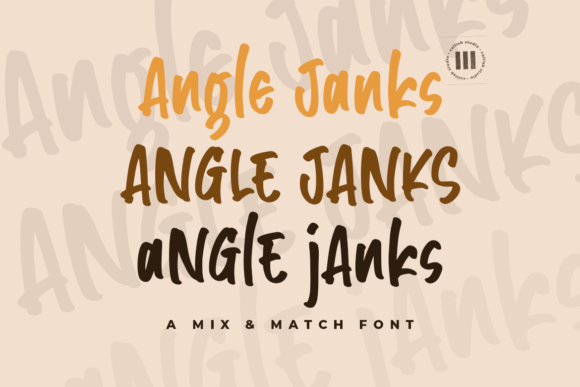
Journey into the realm of culinary artistry with Angle Janks Font, a gastronomic delight for your visual senses. This enchanting script font, crafted by the skilled hands of colllabstudio, dances across your designs like a symphony of flavors. An exquisite blend of delicate and elegant, yet refreshingly casual, Angle Janks Font embodies the essence of culinary creativity.
Indulge your imagination as you explore the boundless possibilities of this font, a perfect match for any design seeking a touch of culinary charm. Its unique characters, like mouthwatering ingredients, harmonize flawlessly, adding a dash of sophistication and a sprinkle of playfulness to your projects.
Envision the tantalizing allure of a hand-written food menu, its letters swirling like wisps of smoke from a gourmet kitchen. Angle Janks Font captures the essence of culinary craftsmanship, transforming your words into delectable treats for the eyes.
Let the aroma of creativity waft through your designs as you incorporate this font into your culinary-themed creations. Whether it's a restaurant logo that exudes warmth and charm or a food packaging design that sparks taste bud anticipation, Angle Janks Font is the secret ingredient you need to make your designs truly sizzle.
As you work your culinary magic with Angle Janks Font, witness the transformation of your designs into masterpieces that evoke the very essence of taste and texture. It's a font that speaks to the senses, inviting your audience to savor the visual feast you've prepared.
So, embark on a culinary adventure with Angle Janks Font, the perfect companion for your most delectable design endeavors. Let your creativity simmer, your imagination boil over, and your designs emerge as a feast for the eyes, leaving your audience hungry for more.